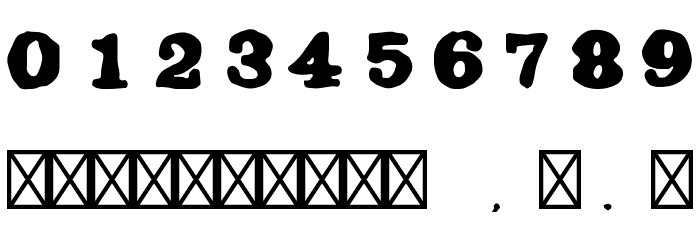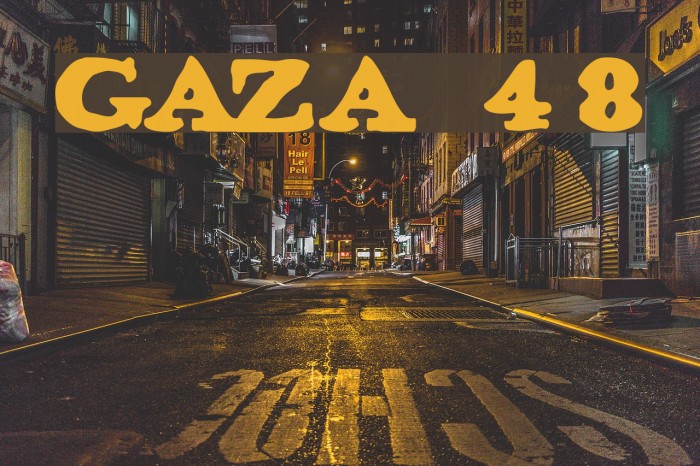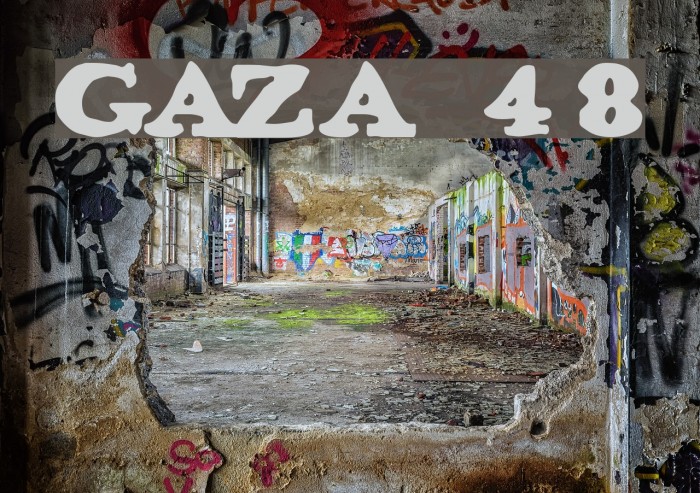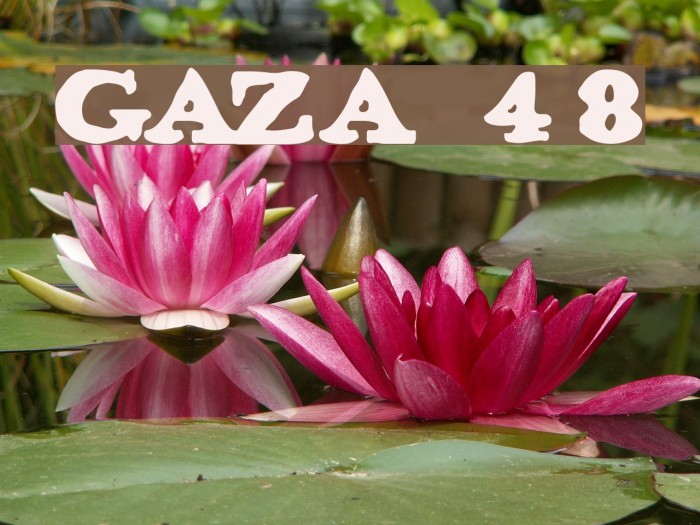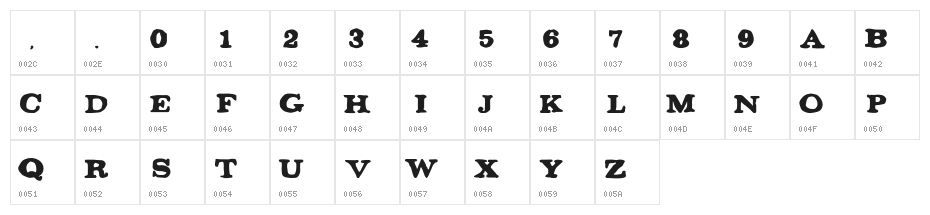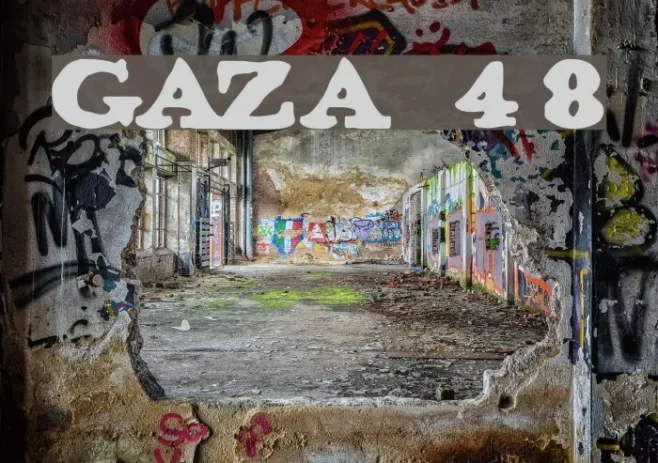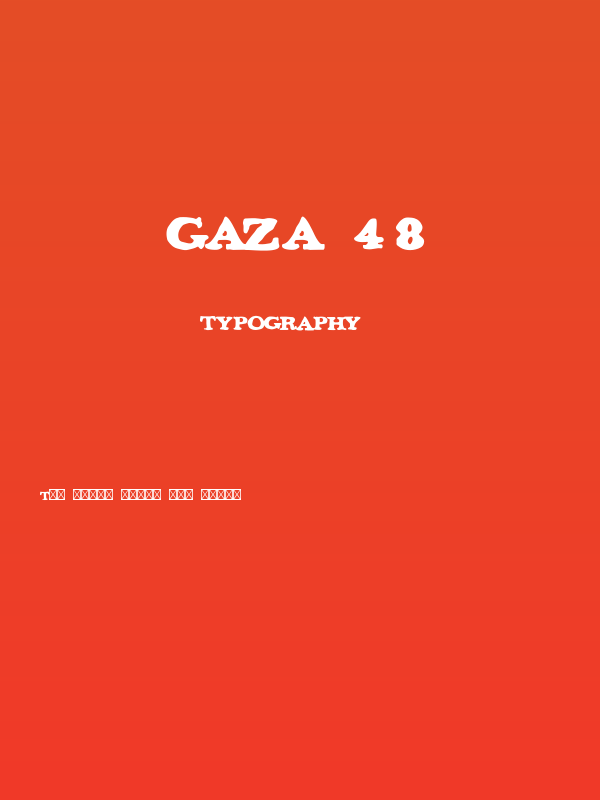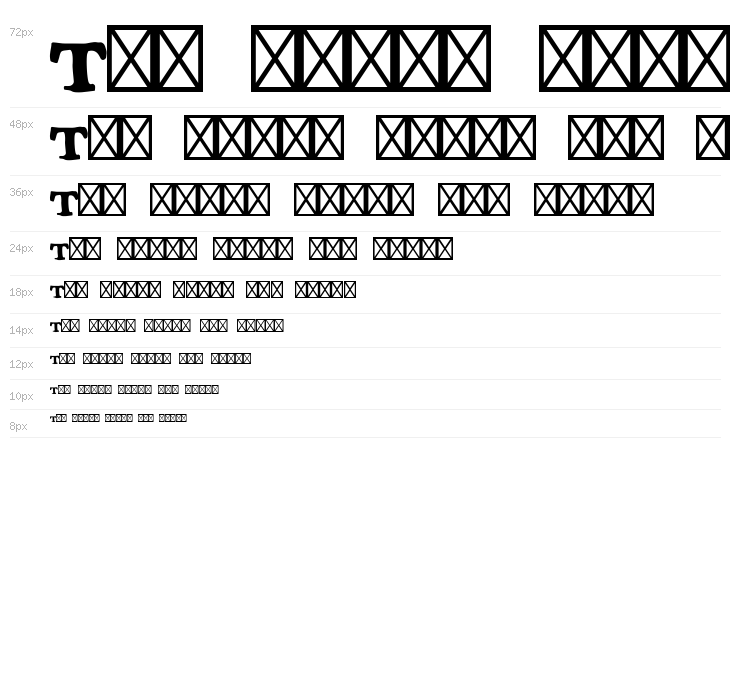
GAZA 48 Font
This font features bold, heavy strokes with a distinct vintage flair. The uppercase letters are robust and slightly condensed, giving a strong presence. The numerals share the same boldness, ensuring consistency across different uses. The font's unique style is characterized by its thick, rounded serifs and slightly irregular shapes, which add a handcrafted feel. The overall design is reminiscent of early 20th-century typefaces, making it ideal for projects that require a touch of nostalgia or a classic look. The spacing between characters is tight, enhancing its compact and impactful appearance.
A bold, vintage-style font with thick, rounded serifs and a handcrafted feel.
- Proposed Projects: Ideal for vintage-themed posters, branding, packaging, and signage that require a strong, classic presence.
- Character Spacing: Tight
- Overall Style: Vintage